Customize Fonts and Effects Easily in an AI Caption Generator
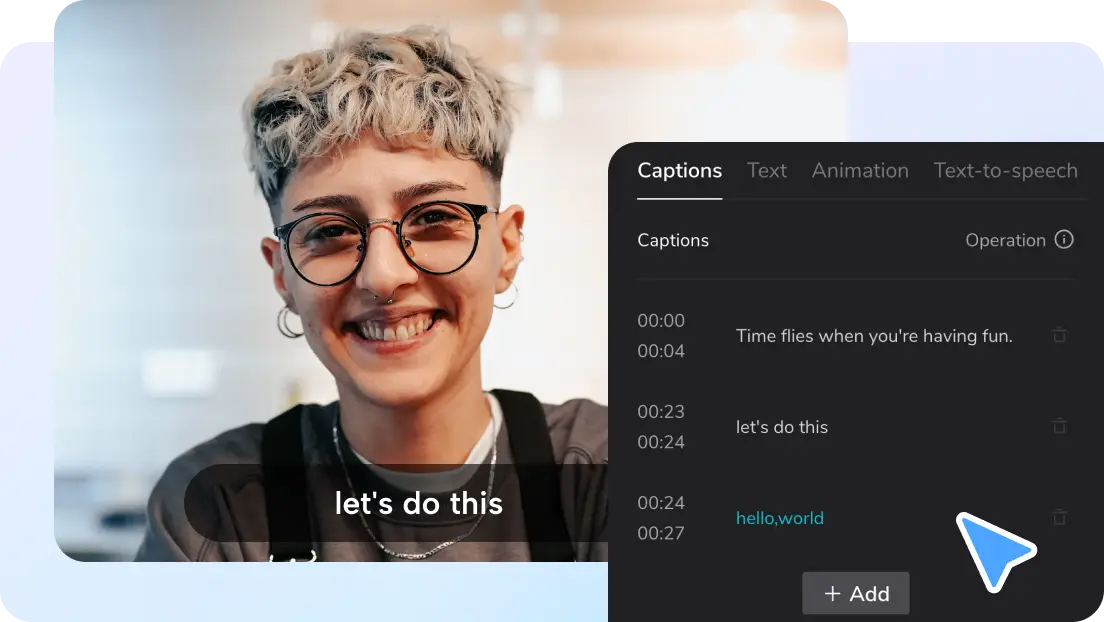
The initial impressions are usually influenced by the way the text looks on the screen. Captions also convey words but also tone and style. Effects and fonts are relevant as timing. The appearance of captions can influence the branding, the mood, and the viewer involvement. This is easily done with CapCut Web. You are able to style captions easily with its tools. CapCut Web has an AI caption generator to help you produce correctly formatted captions that are stylish.
Fonts and Visual Identity in Captions
Letters on a screen are more than fonts. They narrate and make emotions. A light font will have the light effect and a bold font will have the dramatic effect. There must be a matching caption with brand identity. Videos are professional and coherent when your captions comply with the branding rules. A lot of contemporary designers work with transparent, sparse fonts. Some of them play around with bold typography. The art of captioning has adopted the fashion of rounded types, clarity of the sans-serif and slight curves. You can choose the appropriate style in every project with CapCut Web.
Effects that Transform Ordinary Captions
Plain text can feel flat. Effects bring captions to life. Emotions are emphasized with the help of animated captions. Excitement can be stressed by use of a glowing effect. Shadows and gradient enhance readability, particularly on the noisy backgrounds. Motion captions are able to move in a rhythm, which brings vigor to scenes. You are able to turn plain words into interesting visuals. Effects add character to the captions, and make sure they are there to add to the story rather than distract. CapCut Web allows such customizations with few clicks.
Personalization with CapCut Web’s AI Caption Generator
CapCut Web has an extensive fonts and templates library. You may choose the modern, bold, or classic styles. The effects may be applied to a single word or to the whole track. Such a high degree of personalization serves to bring out significant phrases and keep other text plain. In any video, accessibility is important. The fonts are bright and clean so that captions can be read by everyone watching. CapCut Web balances the creative and the clear, thus keeping your captions interesting without losing their meaning.
Balancing Creativity with Readability
Creative captions are eye catching, but readability should remain the priority. Complicated fonts can be stylish, but can be confusing to the viewers. It should not be too ornamental and slow to read. Apply a good color contrast to enable text to be visible on backgrounds. Placement also matters. Captions should not ever be placed over significant visuals. CapCut Web allows you to adjust position, size and alignment to suit any scene. The balance makes captions compatible with platforms and screen sizes. Text is clear whether seen on phones or on large screens. You can also optimize layouts by using editing tools such as crop video as you prepare clips in various formats.
Steps to Customize Fonts and Effects Easily in an AI Caption Generator
Step 2: Style your captions Go to the "Captions" tab on the side menu. You may add manual caption, generate auto captions, upload caption file, or auto recognize lyrics. Click "Auto captions", choose your language, then press "Generate". Afterward, change font, size, text style, or position for a creative look.
Practical Use Cases for Font and Effect Customization
Various platforms require different styles. Captions in social media are usually bold fonts with fast animation. They capture interest in scrolling feeds. Professional advertisements might need smooth, bare captions that are brand-coloured. Effects can also add emotion. A movement similar to that of waves can increase humour. A bright caption can create the atmosphere of suspense. Storytelling by typography allows captions to become a story element. Text no longer becomes merely the spoken word but an actual figure. CapCut Web allows this flexibility on all projects.
Creative Experiments with Styled Captions
Captions allow room to be creative. In the dynamic layout you can experiment with curved or angled text. Images may be overlaid by gradient or bold captions. The fonts and the background of the scene are combined to create immersive effects. When the text is neon colored over an image of a night shot, it makes it look cinematic. It is also effective to involve viewers by moving the text to music. Captions are not just placed on top of the rhythm. You are free to experiment with CapCut Web and find the combinations that can match your vision.
Conclusion
Individualized captions are functional and stylish. The tools of CapCut Web make it possible to shape captions beyond a mere text. Fonts and effects create mood, highlight emotion and strengthen brand identity. Captions are used to perform two functions, namely, providing dialogue and enhancing visuals. You can write catchy and inspiring captions with creativity and readability in mind. Play with fonts, effects, and movement to ensure that your videos are memorable. CapCut Web makes caption styling affordable, professional and powerful.